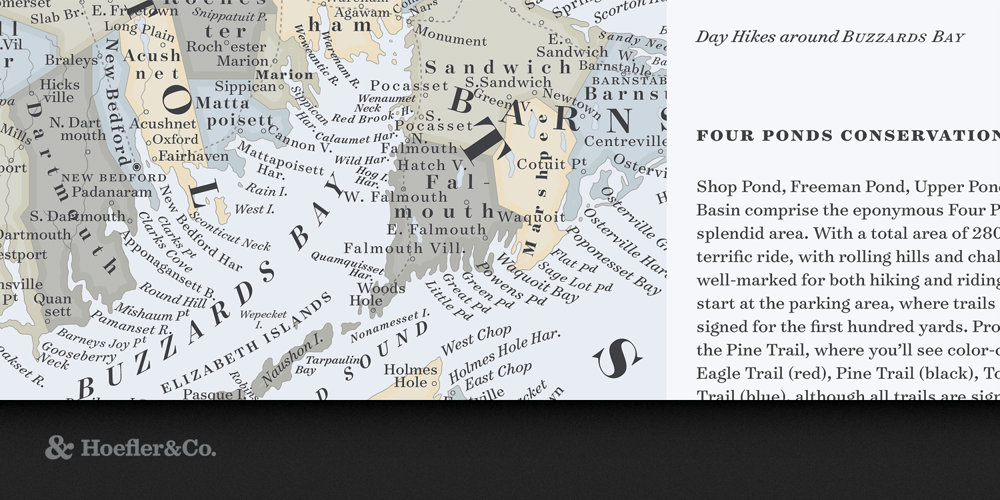
Surveyor Font Family was designed by Jonathan Hoefler and Tobias Frere-Jones and published by Hoefler & Co.. Surveyor contains 60 styles and family package options. Engraved maps use a characteristic form of lettering that’s unmistakable as anything else. We celebrate this style with Surveyor, a monumental family of typefaces designed for print and screen, and for sizes large and small. The Surveyor typeface was designed by Jonathan Hoefler and Tobias Frere-Jones in 2001. It is modeled on a style of engraved lettering first used by British mapmakers in the early nineteenth century, notable for its intensely sloped and flowing italic. Known to signpainters as the ‘stump style,’ these letterforms are representative of a movement in lettering known as the English Vernacular, which before Surveyor went unrepresented in typography. Surveyor was created for Martha Stewart Living, in whose pages the typeface first appeared in 2002. From the desk of the designer: The style of lettering that inspired Surveyor is an invention of the early nineteenth century, born of the material properties of copperplate engraving and the informational needs of cartography. A letter with compact proportions, delicate serifs, and a sinewy italic designed to follow rivers and coastlines, map lettering invited endless variation to help distinguish different kinds of data. A map that used italics for rivers and canals might use its roman for churches and villages, small capitals for bays and harbors, and a grand, sweeping arc of italic swash capitals for the names of the oceans. Inch for inch, few things have ever matched engraved maps for the density of their information, the range of their typographic vocabulary, or their pure visual delight. We’ve always loved maps for their functional and aesthetic properties, and have long wanted to explore their lettering as a family of typefaces. The opportunity arose in 2000, when we were asked by Martha Stewart Living to design for the magazine a custom typeface, as a roman and italic in a single weight. Their brief resonated with what we saw in maps: text with a warm and inviting voice, with the charm of the handmade but the credibility of a textbook, and the functional ability to master many kinds of demanding content at small sizes — including the magazine’s recipes, calendars, step-by-step instructions, and all manner of diagrams. For Living, we created Surveyor in three sizes: Text for body copy, Display for headlines, and Fine for use on the cover. In the ensuing thirteen years, we’ve continued to push the design into new territories, expanding its original weight into a set of five, from a dulcet Light to a roaring Black. Each style now features both roman and italic small caps, and in the text range, a set of tabular figures, extended symbols, and fractions. Swash caps and small caps are managed by an OpenType feature, which we’ve designed to automatically insert or remove swashes based on their context, helping avoid awkward collisions and improve the rhythm of text.